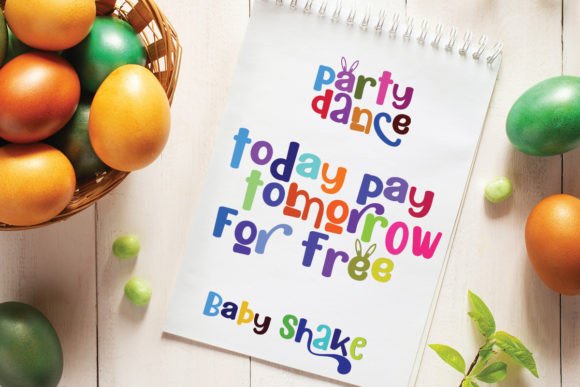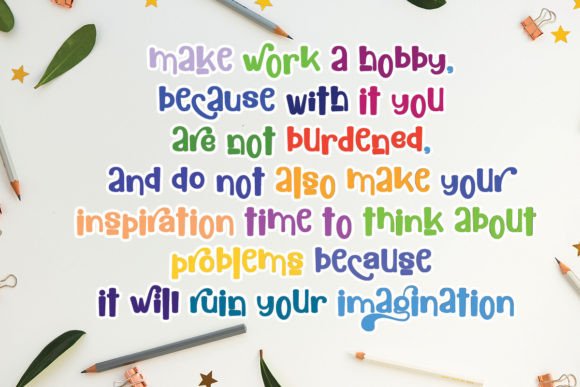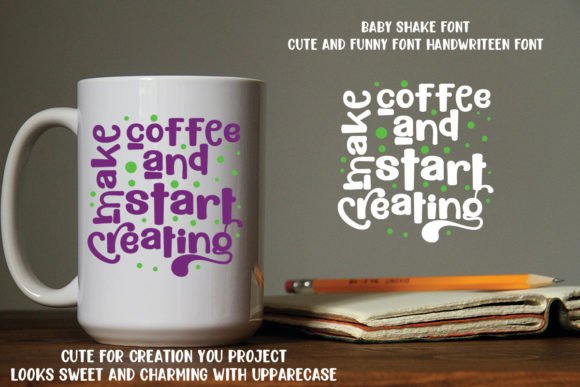
Baby Shake Font: The Cutest Font to Make Your Designs Stand Out
Are you tired of using the same old fonts in your designs? Look no further than the Baby Shake Font! This adorable font is sure to capture the attention of anyone who sees it, with its unique characters and playful vibe. In this article, we’ll dive into the world of Baby Shake Font and explore its features, uses, and benefits for designers and crafters.
What is Baby Shake Font?
Baby Shake Font is a cute and charming font that is designed to bring a touch of whimsy to your designs. Its unique characters and irregular shapes make it stand out from more traditional fonts, and its playful feel is sure to delight audiences of all ages. Whether you’re creating a logo, a poster, or a social media graphic, Baby Shake Font is the perfect choice for adding a bit of fun and personality to your work.
Unique Features of Baby Shake Font
So what sets Baby Shake Font apart from other fonts? Here are just a few of its unique features:
- PUA Encoding: Baby Shake Font is coded with PUA (Private Use Area) encoding, which means that you can easily access all of its unique characters using a glyph. This makes it simple to use the font in a variety of design applications, from Adobe Illustrator to Canva.
- Unique Characters: Baby Shake Font includes a range of unique characters that are sure to add a touch of personality to your designs. From adorable letters to playful symbols, this font has everything you need to create eye-catching graphics.
- Cute and Playful: The overall feel of Baby Shake Font is cute and playful, making it perfect for designs that need to appeal to a younger audience. Whether you’re creating a kids’ party invitation or a social media graphic for a children’s brand, this font is sure to delight.
Uses for Baby Shake Font
So what can you use Baby Shake Font for? The possibilities are endless! Here are just a few ideas to get you started:
- Logos and Branding: Baby Shake Font is a great choice for logos and branding materials, especially for businesses that cater to a younger audience. Its playful feel and unique characters make it a memorable and eye-catching choice.
- Social Media Graphics: Use Baby Shake Font to add a touch of personality to your social media graphics, from Facebook posts to Instagram stories. Its cute and playful feel is sure to help your graphics stand out in a crowded feed.
- Kids’ Party Invitations: Baby Shake Font is a perfect choice for kids’ party invitations, with its adorable letters and playful symbols. You can use it to create custom invitations that will delight kids and parents alike.
- Crafting and Scrapbooking: If you’re a crafter or scrapbooker, Baby Shake Font is a great addition to your font collection. You can use it to add a touch of whimsy to your projects, from photo albums to handmade cards.
So why should designers and crafters choose Baby Shake Font? Here are just a few benefits:
- Easy to Use: Baby Shake Font is simple to use, even for designers who are new to working with unique fonts. Its PUA encoding makes it easy to access all of its characters, and its compatibility with a range of design applications makes it a versatile choice.
- Customizable: With Baby Shake Font, you can customize your designs to fit your brand or personal style. Its unique characters and playful feel make it easy to create eye-catching graphics that reflect your personality.
- Time-Saving: Using Baby Shake Font can save you time in the design process, since you don’t have to spend hours creating custom graphics from scratch. Its pre-made characters and symbols make it easy to create professional-looking designs in no time.
| Font Name | Baby Shake Font |
In conclusion, Baby Shake Font is a cute and playful font that is sure to bring a touch of whimsy to your designs. Its unique characters, PUA encoding, and compatibility with a range of design applications make it a versatile and easy-to-use choice for designers and crafters. Whether you’re creating logos, social media graphics, or crafting projects, Baby Shake Font is the perfect choice for adding a bit of fun and personality to your work.